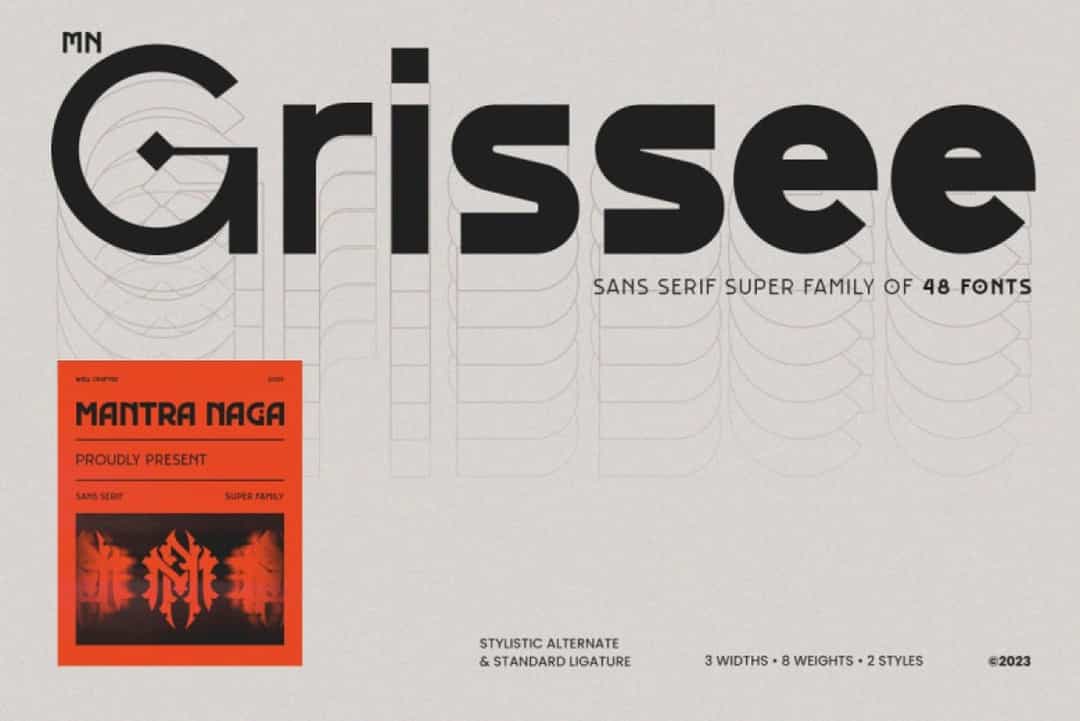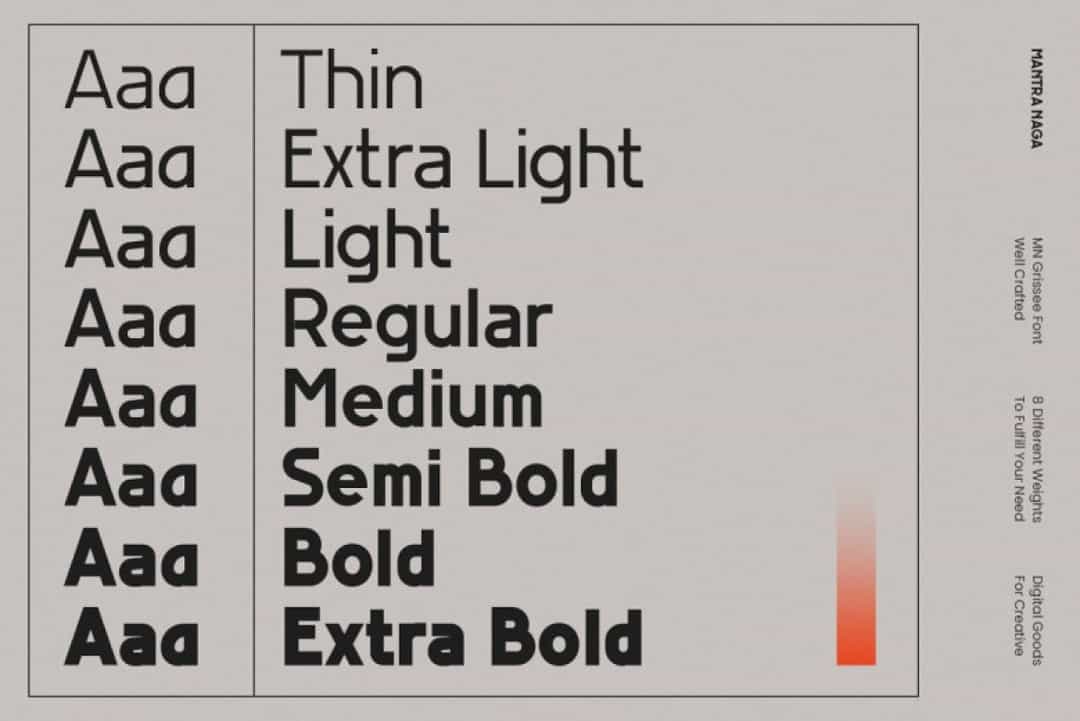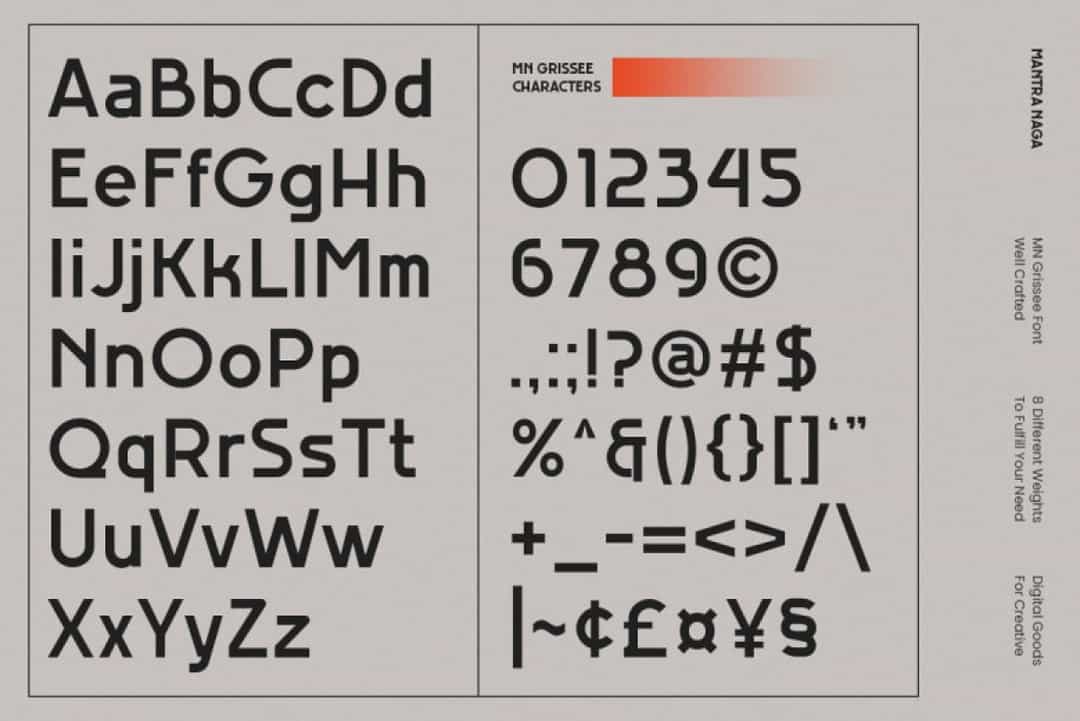
MN Grissee is an innovative sans-serif typeface designed for versatility. Boasting 436 glyphs and rounded facets, MN Grissee can adapt itself to all kinds of graphic design and web projects with its 436 glyphs. It comes as part of 48 font family with three widths, eight weights, two styles as well as professional opentype features like stylistic alternatives, kerning, swash features as well as traditional ligature support as well as multilingual support.